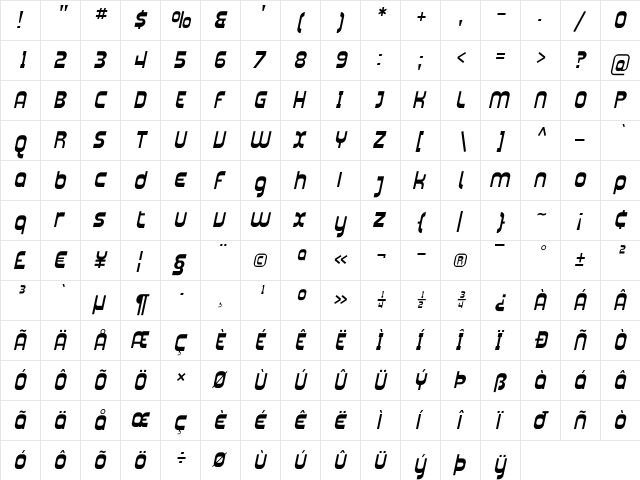
Plasmatica Italic
| Designer | Derek Vogelpohl |
Design Context for Plasmatica Typeface
Plasmatica offers clean, dependable letterforms without strong stylistic allegiance, making it a practical choice for designers who need flexibility. The dynamic lean of this cut emphasises speed and emphasis in any layout.
Pro Tip: Use Plasmatica for emphasis, pull quotes, and subheadings where its slanted energy can add rhythm to the layout.